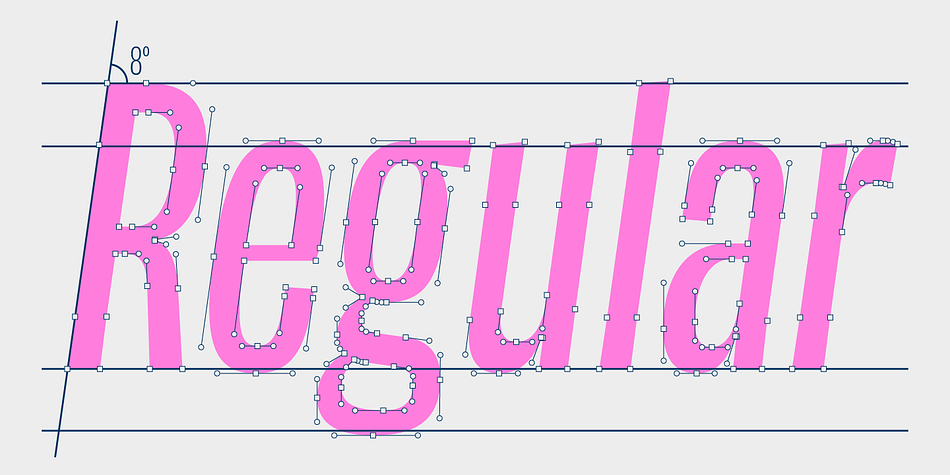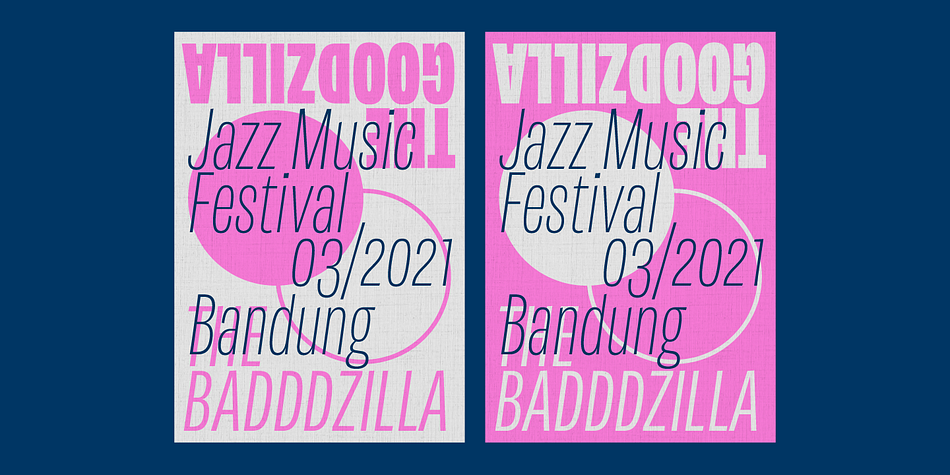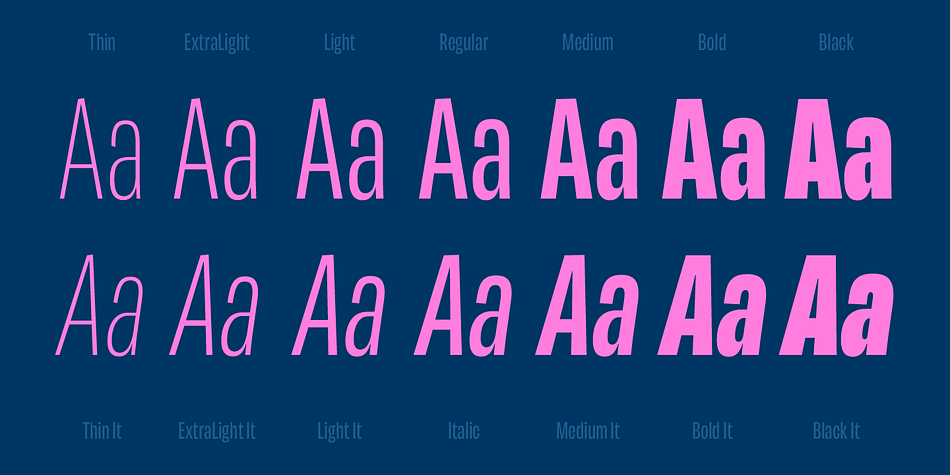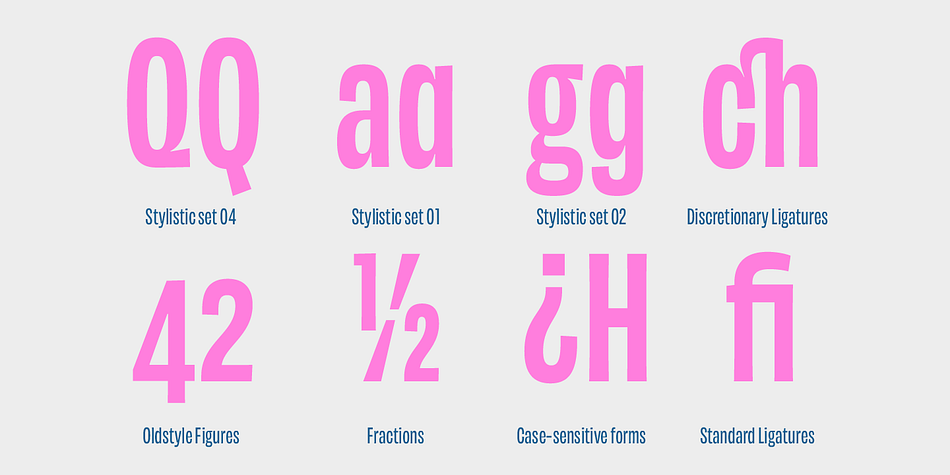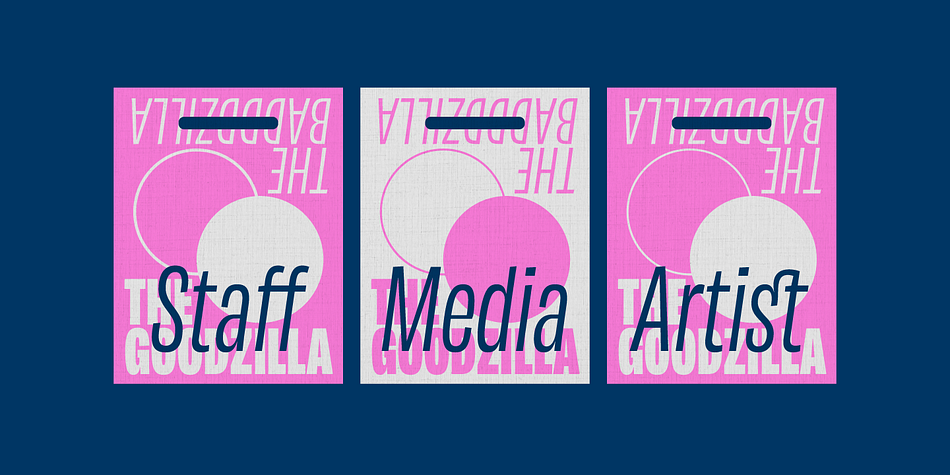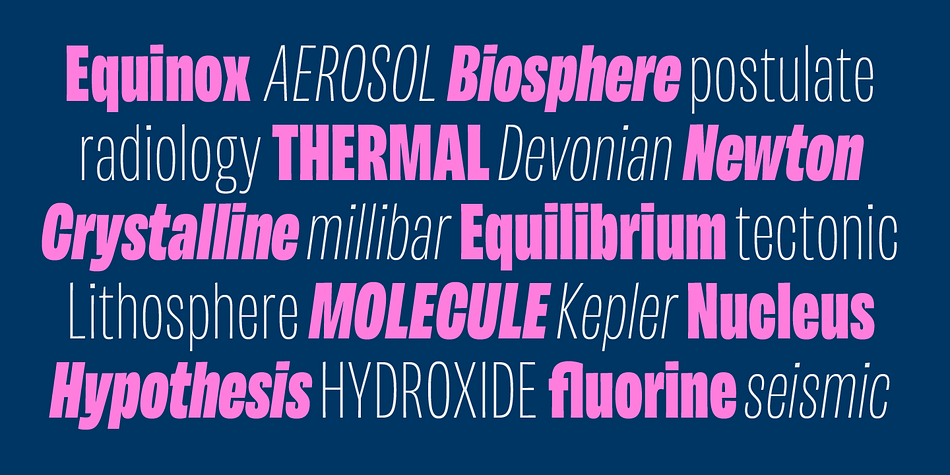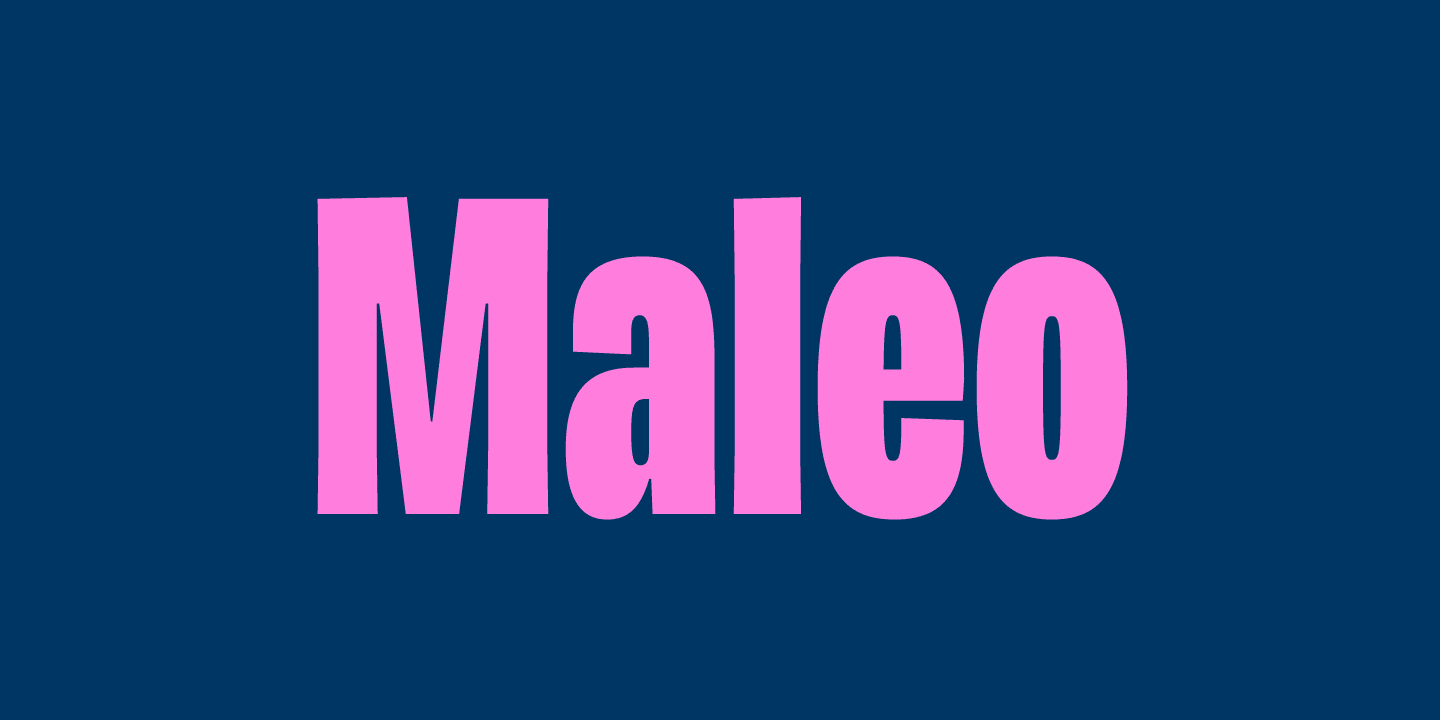
Maleo
Designed by Gumpita Rahayu and Aditya Wiraatmaja, Maleo is a sans serif font family. This typeface has fifteen styles and was published by Tokotype.
Maleo is a contemporary display sans with grotesque roots, taking cues from typefaces such as Benton’s Franklin Gothic & Alternate Gothic and contemporaries such as Obviously & Mars Condensed.
Designed by Aditya Wiraatmaja as his debut retail typeface, Maleo is primarily designed with large-size usage in mind. Its tiny flare and angled cut terminal lends itself a friendly and approachable presence. With a family of 14 styles that range from thin to black with matching italics, it is a versatile display type that stands out in headlines, yet one that emits a charming personality.
Maleo support various languages and is equipped with many Opentype features including; Old Style Figures, Ligature, Fractions, Numerators and Denominators, and Stylistic Alternates.